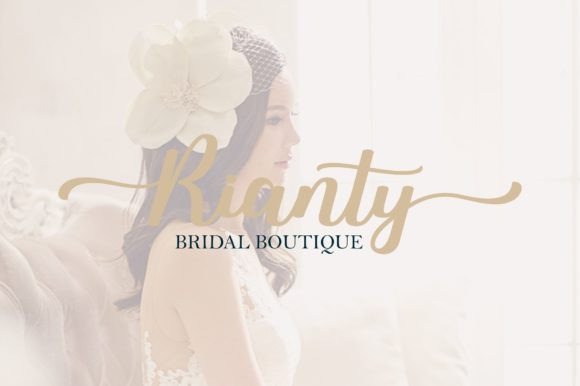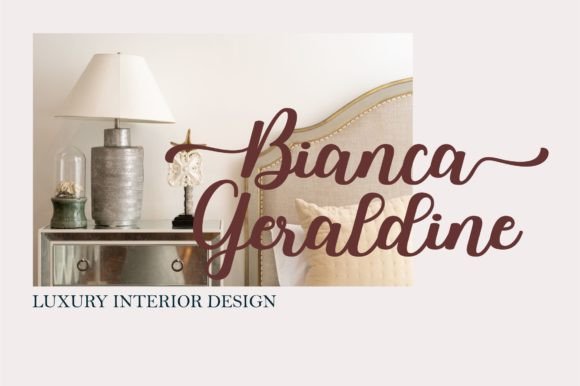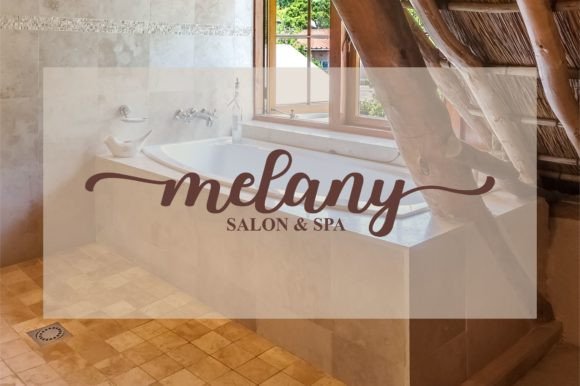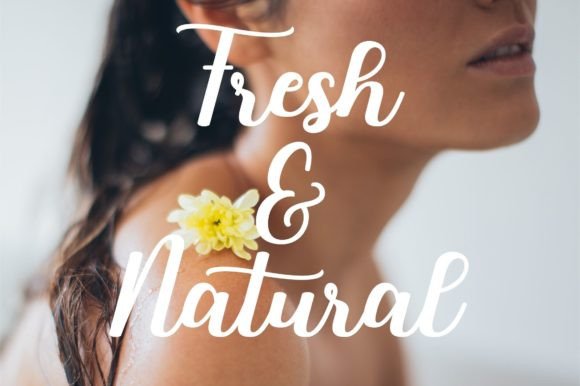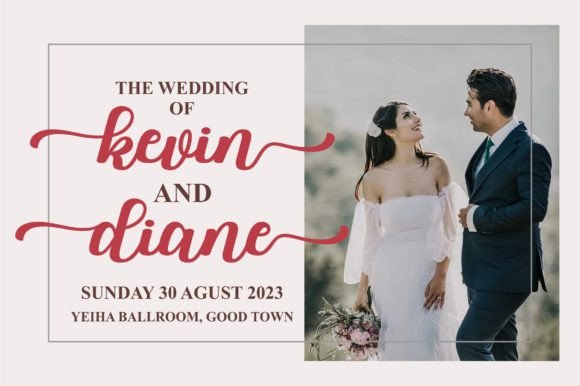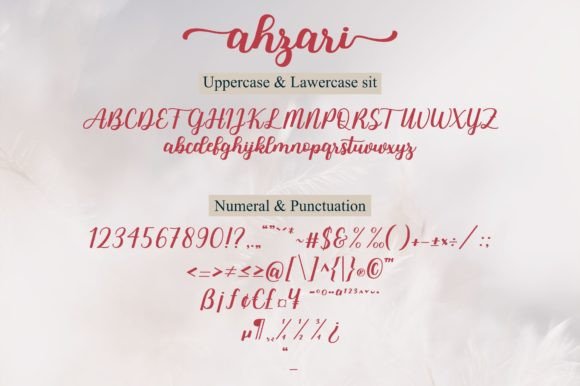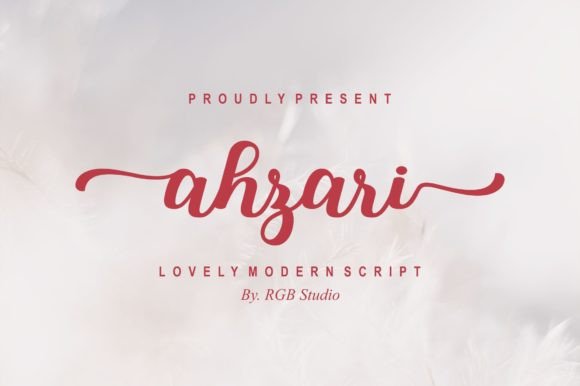
Discover the Beauty of Ahzari Font: A Lovely Calligraphy Font for Your Creative Projects
Are you a designer or crafter looking for a font that adds a touch of elegance and sophistication to your projects? Look no further than Ahzari Font, a stunning calligraphy font that is sure to capture your heart. With its incredibly distinct and timeless style, Ahzari Font is perfect for a wide range of creative projects, from weddings and fashion to invitations, t-shirts, and digital media.
What Makes Ahzari Font So Special?
Ahzari Font is a beautifully crafted calligraphy font that is described by a girly touch, making it perfect for projects that require a feminine and elegant feel. Its unique and distinctive style is sure to make your designs stand out from the crowd, and its timeless appeal ensures that your projects will remain stylish and relevant for years to come.
One of the key features that sets Ahzari Font apart is its PUA encoding. This means that you can access all of the glyphs and swashes with ease, giving you complete creative control over your designs. Whether you’re looking to add a touch of whimsy or a dash of sophistication, Ahzari Font provides you with the flexibility to do so.
Perfect for a Wide Range of Creative Projects
Ahzari Font is incredibly versatile, making it perfect for a wide range of creative projects. Here are just a few examples of how you can use Ahzari Font to add a touch of elegance and sophistication:
- Weddings: Use Ahzari Font to create beautiful wedding invitations, wedding stationery, and even wedding signage.
- Fashion: Add a touch of glamour to your fashion designs with Ahzari Font, perfect for branding, labels, and packaging.
- Invitations: Create stunning invitations for any occasion, from baby showers to birthday parties.
- T-shirts: Use Ahzari Font to create unique and stylish t-shirt designs that are sure to turn heads.
- Websites: Add a touch of elegance to your website with Ahzari Font, perfect for headlines, titles, and more.
- Headlines: Use Ahzari Font to create eye-catching headlines for your blog posts, articles, and more.
- Branding: Create a cohesive brand identity with Ahzari Font, perfect for logos, business cards, and more.
- Signature: Add a touch of personality to your email signature or social media profiles with Ahzari Font.
- Labels: Use Ahzari Font to create stylish labels for your products, packaging, or even your craft projects.
Why Choose Ahzari Font?
With so many fonts to choose from, why should you choose Ahzari Font? Here are just a few reasons why Ahzari Font stands out from the crowd:
- Unique and Distinctive Style: Ahzari Font has an incredibly unique and distinctive style that is sure to make your designs stand out.
- Timeless Appeal: Ahzari Font has a timeless appeal that ensures your designs will remain stylish and relevant for years to come.
- PUA Encoding: Ahzari Font is PUA encoded, giving you complete creative control over your designs.
- Versatile: Ahzari Font is incredibly versatile and can be used for a wide range of creative projects.
| Font Name | Ahzari Font |
| Author | RGB Studio |
If you’re looking for a font that adds a touch of elegance and sophistication to your creative projects, look no further than Ahzari Font. With its incredibly distinct and timeless style, Ahzari Font is perfect for a wide range of creative projects, from weddings and fashion to invitations, t-shirts, and digital media. Its PUA encoding gives you complete creative control over your designs, and its versatility makes it perfect for any project that requires a stylish touch.